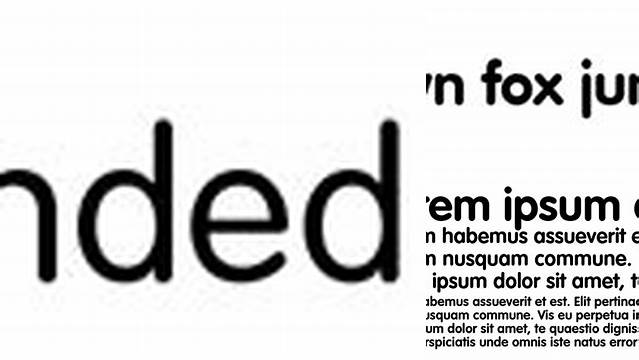
Vag Rounded STD Light Font: Free Download Guide
Hey guys! Are you on the hunt for a clean, modern, and versatile font for your next design project? Look no further! The Vag Rounded STD Light font might just be the perfect choice. This font has a smooth, friendly appearance that's ideal for a wide range of applications, from website design to print materials. In this comprehensive guide, we'll dive deep into everything you need to know about the Vag Rounded STD Light font, including where to find it for free download, its unique characteristics, and how to best utilize it in your projects.
The Vag Rounded STD Light font is a popular choice among designers and creatives due to its clean lines, rounded edges, and overall readability. This font exudes a sense of modernity and approachability, making it suitable for various design aesthetics. Whether you're working on a minimalist website, a playful branding project, or a professional presentation, the Vag Rounded STD Light font can add a touch of sophistication and clarity. It is important to use appropriate fonts in designing because fonts play a crucial role in conveying the message and tone of your project. The Vag Rounded STD Light font strikes a perfect balance between being contemporary and classic, which makes it adaptable to different design contexts. In the digital realm, readability is key, and the Vag Rounded STD Light font excels in this aspect. Its clear letterforms ensure that text is easily legible on screens of all sizes, which is essential for websites, apps, and other digital interfaces. For print materials, the font's smooth curves and even weight distribution result in crisp, professional-looking text. When you choose the right font, you enhance the overall aesthetic appeal and functionality of your design. The Vag Rounded STD Light font is particularly effective for headlines and body text alike, providing designers with the flexibility to create visually cohesive layouts. It pairs well with a variety of other fonts, allowing you to create interesting typographical hierarchies and add depth to your designs. This font is a valuable addition to any designer's toolkit, offering a blend of style and practicality. Understanding the nuances of font selection can elevate your designs from good to great. By choosing the Vag Rounded STD Light font, you’re not just selecting a typeface; you're choosing a visual voice that can help your message resonate with your audience. So, let's explore how you can get your hands on this fantastic font for free and start incorporating it into your creative endeavors. You'll soon see why it’s a favorite among designers worldwide. Trust me, guys, this font is a game-changer!
What Makes Vag Rounded STD Light Font Special?
So, what exactly makes the Vag Rounded STD Light font so special? Let's break down its key features and characteristics to understand why it's such a beloved choice for designers worldwide. First off, the rounded edges are a major part of its appeal. Unlike fonts with sharp, angular corners, Vag Rounded STD Light has a soft, friendly vibe. This makes it perfect for projects that need to convey warmth and approachability. Think about logos for children's brands, friendly user interfaces, or invitations for casual events – the rounded edges add a touch of playfulness without sacrificing professionalism. The clean lines of the font contribute to its modern look. The simplicity in its design ensures that it doesn’t appear cluttered or overwhelming, even when used in large blocks of text. This clarity is crucial for readability, especially in digital formats. Websites and apps benefit greatly from fonts like Vag Rounded STD Light, which allow users to easily scan and digest information. It's like the font is saying, "Hey, I'm here to help you read this, no fuss!" The lightness of the font is another essential characteristic. The "Light" in Vag Rounded STD Light means that the strokes are thinner compared to regular or bold versions. This gives the font an airy, elegant feel. It works wonderfully for headlines, subheadings, and body text where you want to create a sense of openness and sophistication. The light weight also makes it a great choice for designs that require a minimalist aesthetic. Imagine a sleek, modern website with plenty of white space – Vag Rounded STD Light would fit right in. Versatility is another key aspect of this font. It's not just a one-trick pony; it can be used in a wide range of projects. From branding and advertising to editorial design and web interfaces, Vag Rounded STD Light adapts beautifully. Its neutral yet stylish appearance means it can complement various design styles and themes. Whether you're going for a corporate look, a creative vibe, or something in between, this font has got your back. Think of all the possibilities! You could use it for a startup's logo, a magazine's body text, or even the captions in your Instagram posts. The font's adaptability makes it a valuable tool in any designer's arsenal. Moreover, the Vag Rounded STD Light font is known for its excellent legibility across different sizes and formats. This is super important because a font that looks great in a headline might become a blurry mess when used in smaller text. Fortunately, Vag Rounded STD Light maintains its clarity and sharpness even at smaller sizes, ensuring a consistent and professional look throughout your design. This feature makes it a reliable choice for projects where readability is paramount, such as user manuals, brochures, and educational materials. The font's ability to perform well in various contexts is a testament to its thoughtful design and makes it a go-to option for many professionals. The overall aesthetic of the Vag Rounded STD Light font is modern and approachable. It doesn't feel stuffy or overly formal, which makes it ideal for communicating with a wide audience. Whether you're trying to connect with millennials, Gen Z, or baby boomers, this font can help you strike the right tone. Its friendly appearance invites readers in and makes your message more engaging. In a world where first impressions matter, choosing the right font can make all the difference. Vag Rounded STD Light helps you convey a sense of competence and trustworthiness without feeling intimidating. This can be particularly beneficial for businesses and organizations that want to build strong relationships with their customers or stakeholders. So, there you have it – a deep dive into what makes Vag Rounded STD Light so special. It's a font that combines style, functionality, and versatility, making it a top pick for designers everywhere. Now, let's move on to the exciting part: finding out where you can download it for free!
Tips for Using Vag Rounded STD Light in Your Designs
Alright, guys, you've got the Vag Rounded STD Light font downloaded and ready to go – awesome! Now, let's talk about how to actually use it effectively in your designs. Just having a great font isn't enough; you need to know how to wield it like a pro to make your projects shine. First and foremost, consider the overall tone and message of your design. Vag Rounded STD Light is a versatile font, but it's not a one-size-fits-all solution. Its rounded edges and clean lines give it a modern and friendly feel, which makes it ideal for projects that need to convey approachability, clarity, and a touch of playfulness. If you're working on something that needs to feel serious, formal, or edgy, this font might not be the best fit. Think about the context in which your design will be used. Is it for a website, a print brochure, a logo, or social media graphics? The medium can influence how you use the font. For example, on a website, you'll want to prioritize readability and use the font in a way that makes the text easy to scan and digest. In print, you have more flexibility to experiment with different sizes and weights. When it comes to pairing fonts, Vag Rounded STD Light plays well with others. Its neutral and clean appearance means it can complement a wide range of typefaces. A classic pairing is to use it for headlines with a more traditional serif font for body text, such as Georgia or Times New Roman. This creates a nice contrast and adds visual interest to your design. Alternatively, you can pair it with another sans-serif font that has a different weight or style to create a more cohesive and modern look. Some good options include Roboto, Open Sans, or Lato. The key is to choose a pairing that feels balanced and harmonious. Avoid using too many fonts in one design, as this can create a cluttered and confusing look. A good rule of thumb is to stick to two or three fonts at most. Font hierarchy is another crucial aspect of effective typography. Use different sizes and weights of Vag Rounded STD Light to create a clear visual hierarchy and guide the reader's eye through the design. For example, you might use a larger, bolder weight for headlines, a medium weight for subheadings, and the light weight for body text. This helps to organize the information and makes it easier for people to understand your message. Don't be afraid to play around with different font sizes and weights to see what works best for your specific design. White space, also known as negative space, is your friend! Give your text room to breathe by using ample white space around it. This makes the design feel less cluttered and improves readability. Cramming too much text into a small space can make it difficult for people to focus on your message. Use margins, padding, and line spacing to create a comfortable and visually appealing layout. The Vag Rounded STD Light font, with its clean and airy appearance, particularly benefits from generous white space. Color is another important factor to consider when using Vag Rounded STD Light. The font works well with a variety of color palettes, but it's essential to choose colors that complement the font and the overall tone of your design. A simple, clean color palette can enhance the font's modern aesthetic, while bolder colors can add a touch of playfulness. Be mindful of contrast to ensure that your text is legible. Light text on a dark background or dark text on a light background usually works best. Experiment with different color combinations to see what creates the most impactful visual effect. In logo design, Vag Rounded STD Light can be a fantastic choice for brands that want to convey a sense of friendliness, innovation, and modernity. Its clean lines and rounded edges make it approachable and memorable. Use it sparingly in your logo to create a lasting impression. You might consider pairing it with a simple icon or graphic element to reinforce your brand identity. The font's versatility also makes it suitable for a variety of industries, from tech startups to creative agencies. Finally, always test your designs on different devices and screens to ensure that the font looks good in various contexts. What looks great on your computer might not look as good on a mobile device or a large display. Use responsive design principles and test your designs across different platforms to ensure a consistent and professional look. So, there you have it – some top tips for using Vag Rounded STD Light in your designs. With a little creativity and attention to detail, you can leverage this fantastic font to create visually stunning and effective projects. Now go out there and make some design magic happen!
Conclusion: Embrace the Versatility of Vag Rounded STD Light
Well, guys, we've reached the end of our deep dive into the Vag Rounded STD Light font. We've covered everything from its unique characteristics and where to find it for free download, to tips on how to use it effectively in your designs. Hopefully, you now have a solid understanding of why this font is so popular and how it can elevate your creative projects. To recap, the Vag Rounded STD Light font is a versatile and modern typeface that's perfect for a wide range of applications. Its rounded edges and clean lines give it a friendly and approachable feel, while its light weight adds a touch of elegance and sophistication. Whether you're working on a website, a logo, a brochure, or social media graphics, this font can help you communicate your message clearly and effectively. One of the key takeaways from our discussion is the importance of choosing the right font for your project. Typography plays a crucial role in conveying the tone and message of your design, and the Vag Rounded STD Light font is a great option for projects that need to feel modern, friendly, and accessible. Its versatility allows you to use it in various contexts and pair it with a wide range of other fonts to create visually compelling designs. Remember to always consider your target audience and the overall aesthetic you're trying to achieve when selecting a font. Another important point to keep in mind is the significance of using fonts legally. While there are many places where you can find free fonts, it's crucial to ensure that you're downloading them from reputable sources and that you understand the licensing terms. Always check whether the font is free for commercial use before incorporating it into your projects to avoid any potential legal issues. There are plenty of resources available online, such as Google Fonts and Font Squirrel, that offer high-quality fonts with clear licensing information. Experimenting with different fonts and typographical techniques is essential for honing your design skills. The Vag Rounded STD Light font is a great starting point, but don't be afraid to explore other typefaces and see how they can enhance your designs. Try pairing it with different fonts, playing with font sizes and weights, and experimenting with color and white space to create unique and visually appealing layouts. The more you practice, the better you'll become at using typography to communicate your message effectively. As we've discussed, the Vag Rounded STD Light font is particularly well-suited for digital designs. Its clean lines and excellent legibility make it a great choice for websites, apps, and other digital interfaces. When using it online, be sure to optimize your font choices for web use by using web-safe fonts or embedding fonts using services like Google Fonts. This ensures that your designs look consistent across different browsers and devices. In conclusion, the Vag Rounded STD Light font is a valuable asset for any designer's toolkit. Its versatility, modern aesthetic, and excellent legibility make it a go-to choice for a wide range of projects. By following the tips and guidelines we've discussed in this article, you can effectively incorporate this font into your designs and create visually stunning and impactful work. So go ahead, embrace the versatility of Vag Rounded STD Light, and let your creativity shine! Thanks for joining me on this font adventure, guys! I hope you found it helpful and inspiring. Now go out there and make some awesome designs! Remember, the right font can make all the difference.